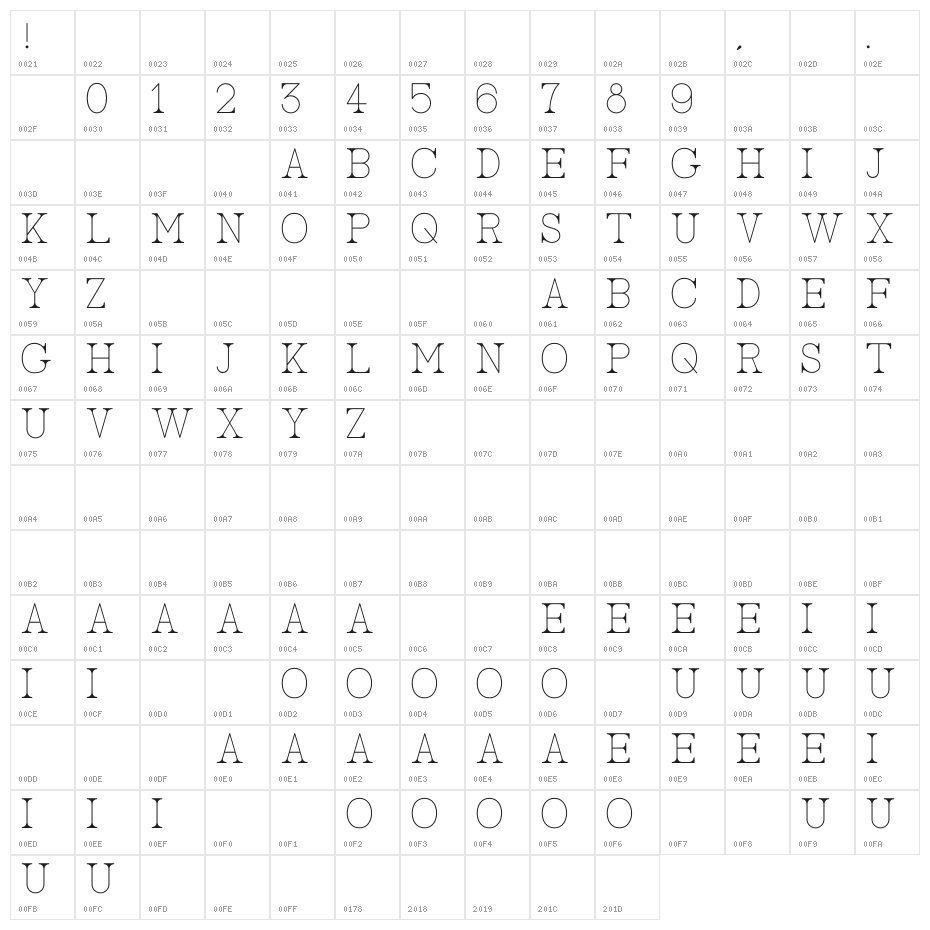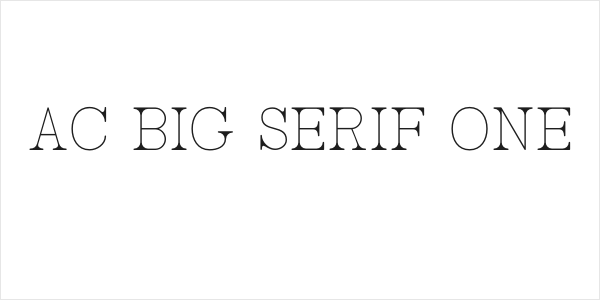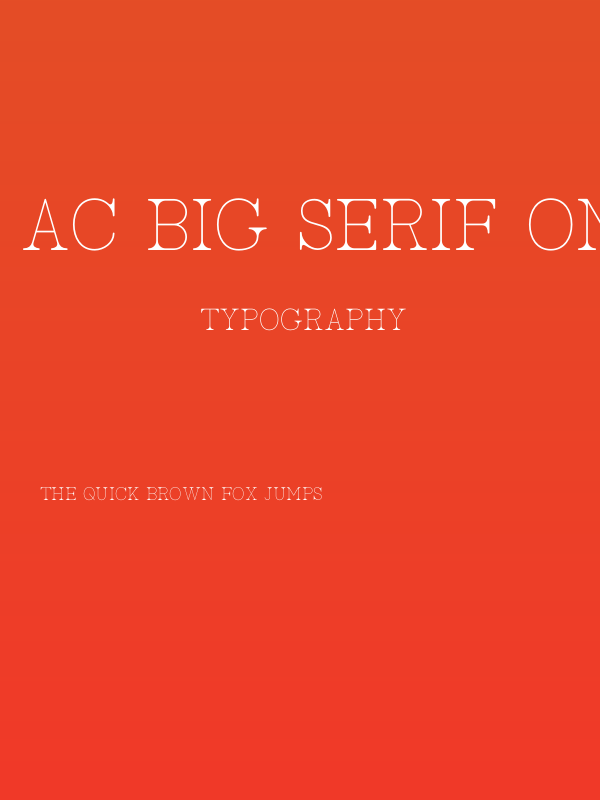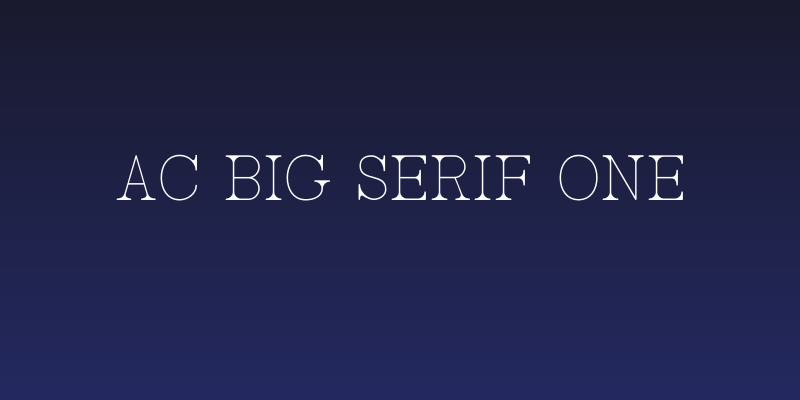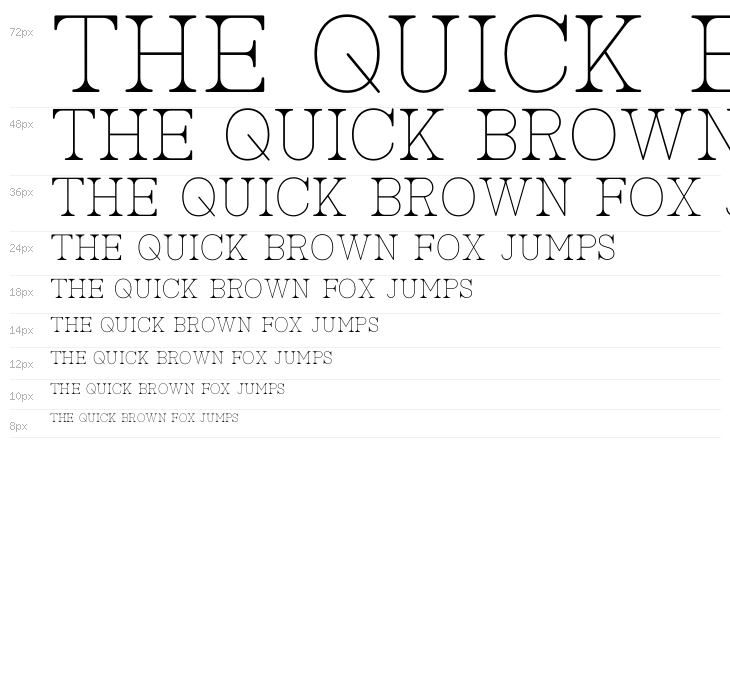
AC Big Serif One Font
AC Big Serif One Description
This font is a striking serif typeface characterized by its bold and elegant design. The uppercase letters feature strong vertical lines with subtle curves, giving them a classic yet modern appearance. The lowercase letters maintain a consistent style, offering a harmonious balance between the upper and lower cases. The numbers are distinct and clear, with a uniform height that complements the overall aesthetic. Special characters are designed with the same attention to detail, ensuring they integrate seamlessly with the rest of the font. The serifs are pronounced, adding a touch of sophistication and readability, making it suitable for both digital and print media.
| Proposed Projects | Ideal for book covers, editorial design, branding projects, and elegant invitations. |